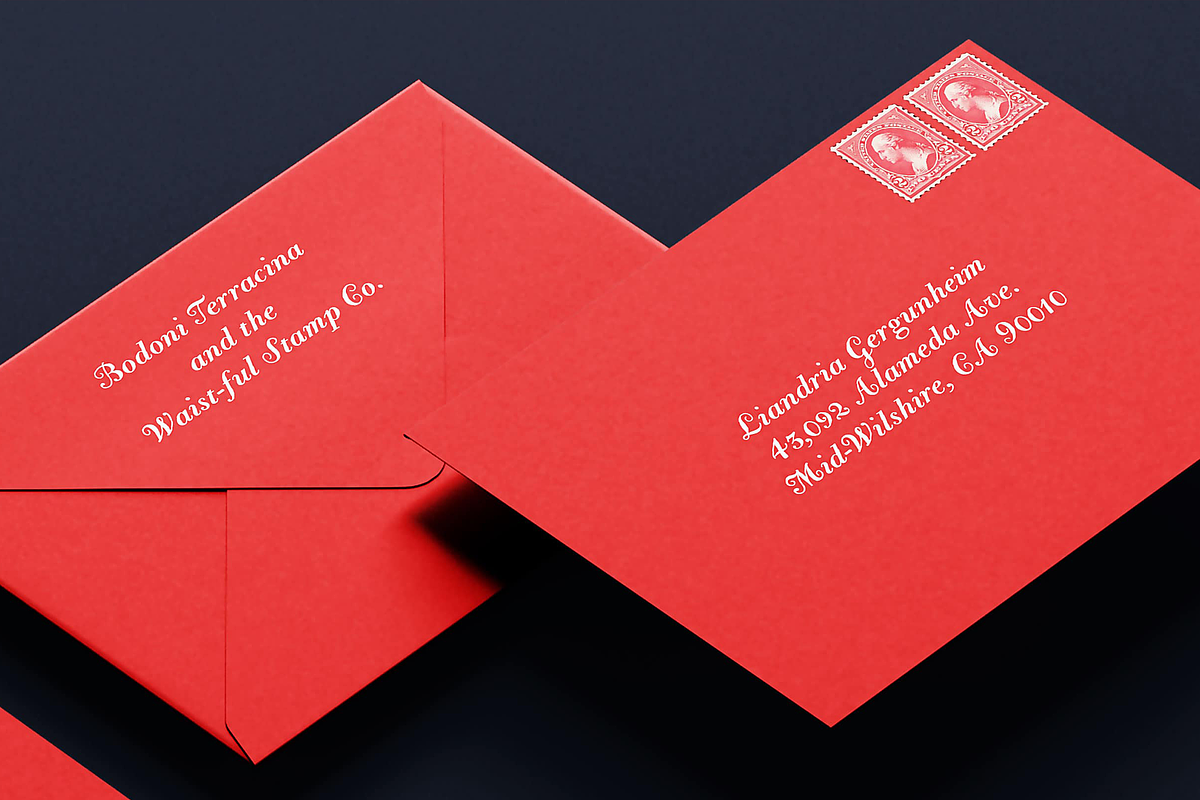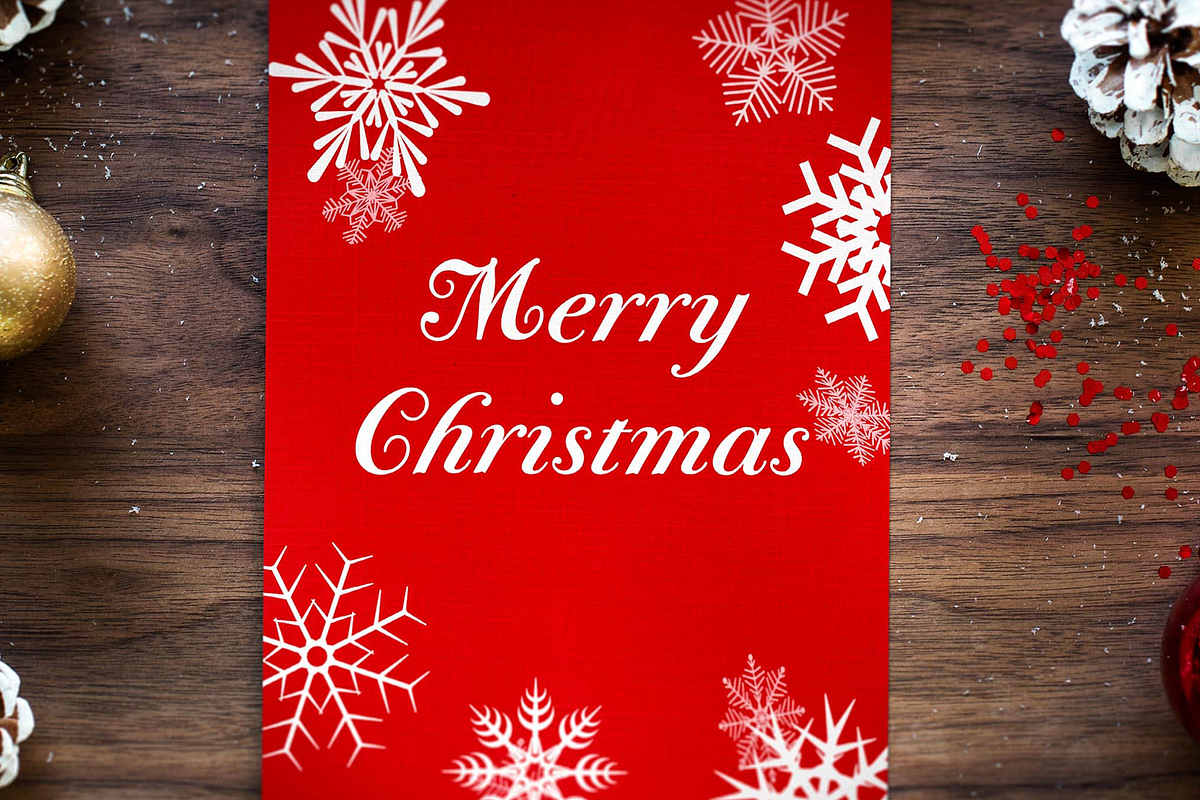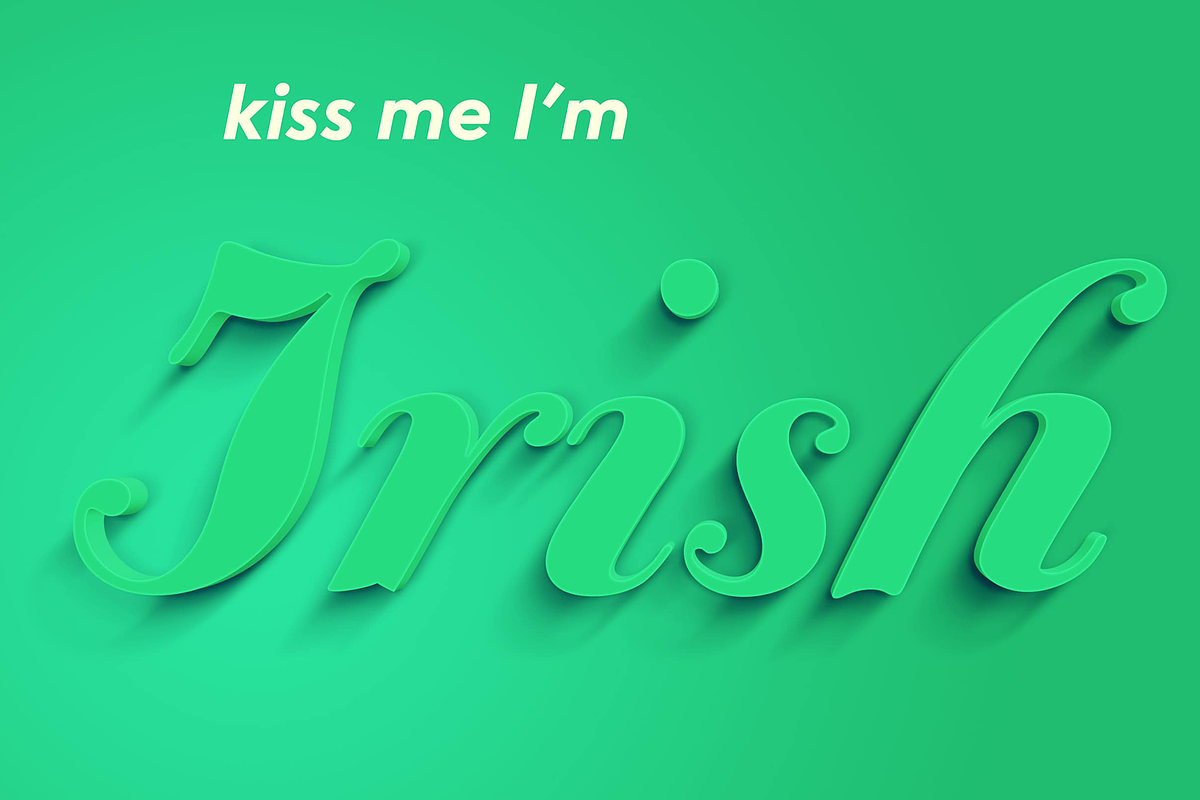
Bodoni Terracina is a legible, fun-formal script face, with lots of curls.
Sometimes script faces are hard to read. Sometimes being formal means that there’s no personality and there’s no fun.
Enter Terracina: one of the masterpieces of font design. Some of the most personable italics ever carved.
Includes powerful new features for: • Dates • Pricings • Addresses
Not is only Terracina formal but fun, it’s also fun to use!
In a program like Adobe Indesign or Illustrator, just highlight a word and see lots of fun options.
Bodoni himself etched these symbols, and his fun-loving personality shines through.
As a semi-script, it can go together with many script fonts, but it is more readable. When you need something equal parts elegant and whimsical, Terracina strikes a perfect balance to let the fun shine through, such as for holiday designs or fairytales.
Terracina is a subheads font, but Bodoni also used it for paragraphs. So Terracina works well doing subhead paragraphs, especially when contrasting with the mood of the first font. And because of the swash variety, it works well for setting German and other European languages.
CAL Bodoni Terracina is a member of our Origins Series. Origin Fonts are designed to be true to the original designer's intentions and fonts. Our Bodoni origin fonts ARE Bodoni fonts, not imitations or interpretations. They were drawn by Bodoni, our team just expanded it for modern use. For Terracina, Bodoni's original weight is the "Quasi-Lite" option, all other weights have been meticulously matched by the CAL Origins Team.